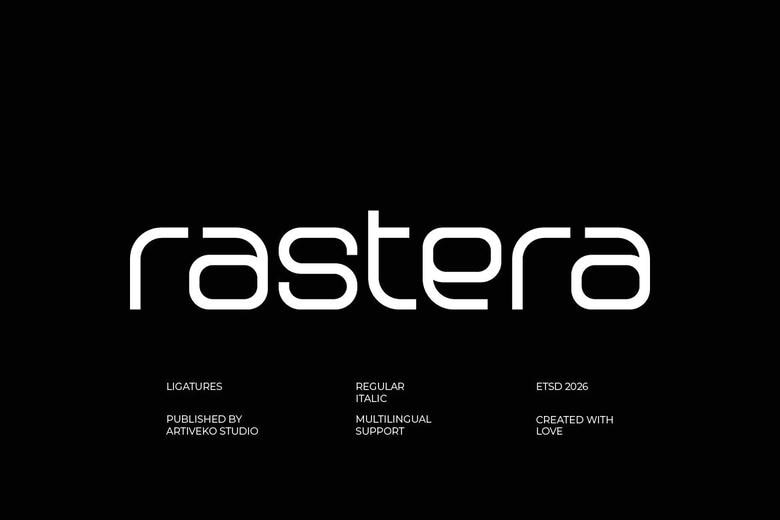
Rastera Font
Rastera is a simple sans serif typeface that is minimalist, clear, simple and modern. Having clean lines, proportions, and spacing, Rastera provides a smooth and professional appearance that perfectly fits into modern design systems.
Rastera Sans Serif Font